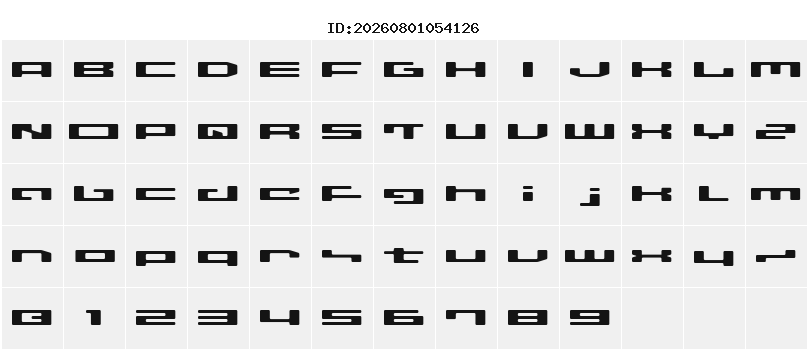
LVDC Disco02 Preview
• Font Name: LVDC Disco02
About LVDC Disco02.ttf
LVDC Disco02.ttf is a modern, elegant sans-serif font designed for ultimate readability and visual harmony. Perfect for branding, headlines, web design, and print materials.